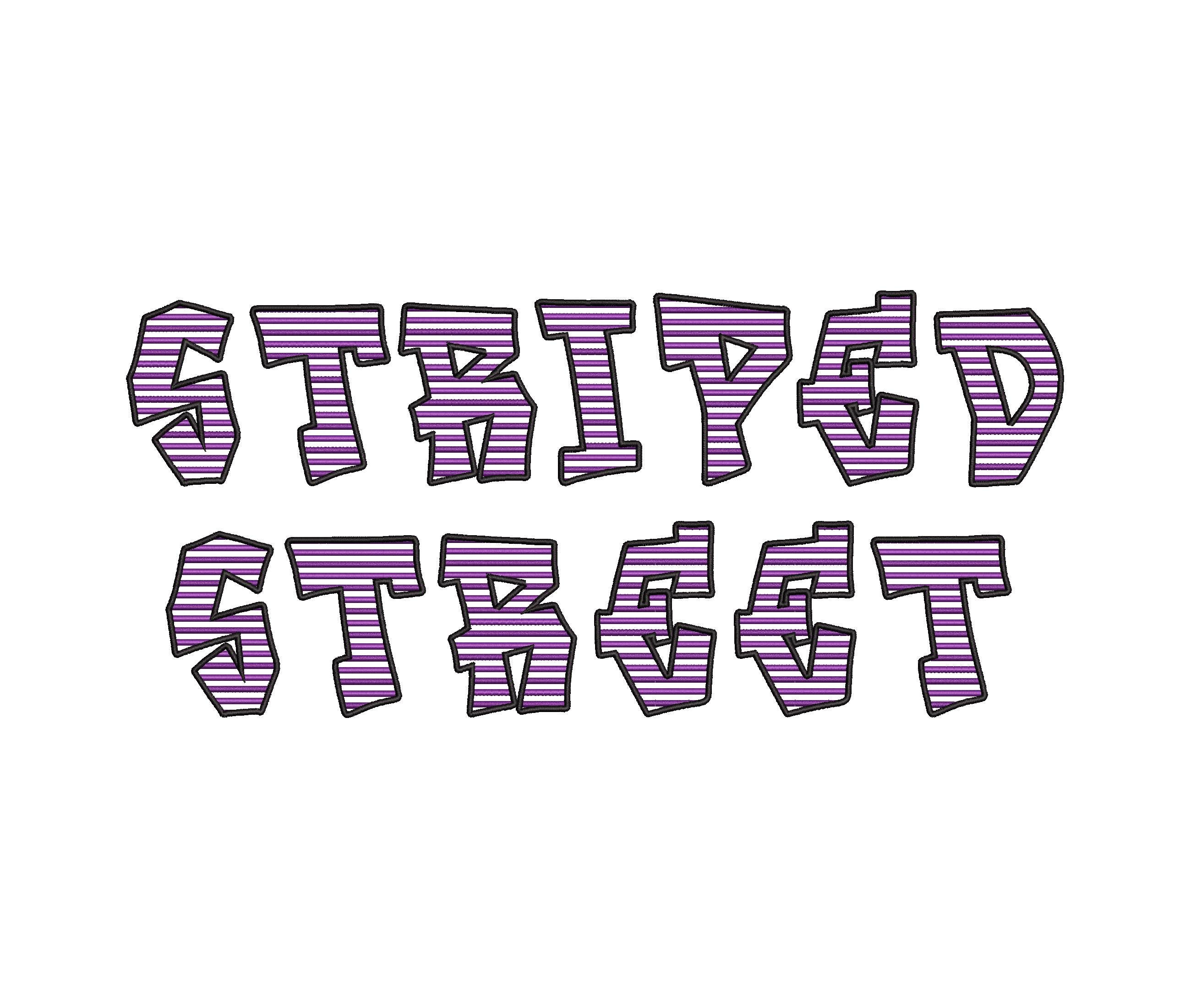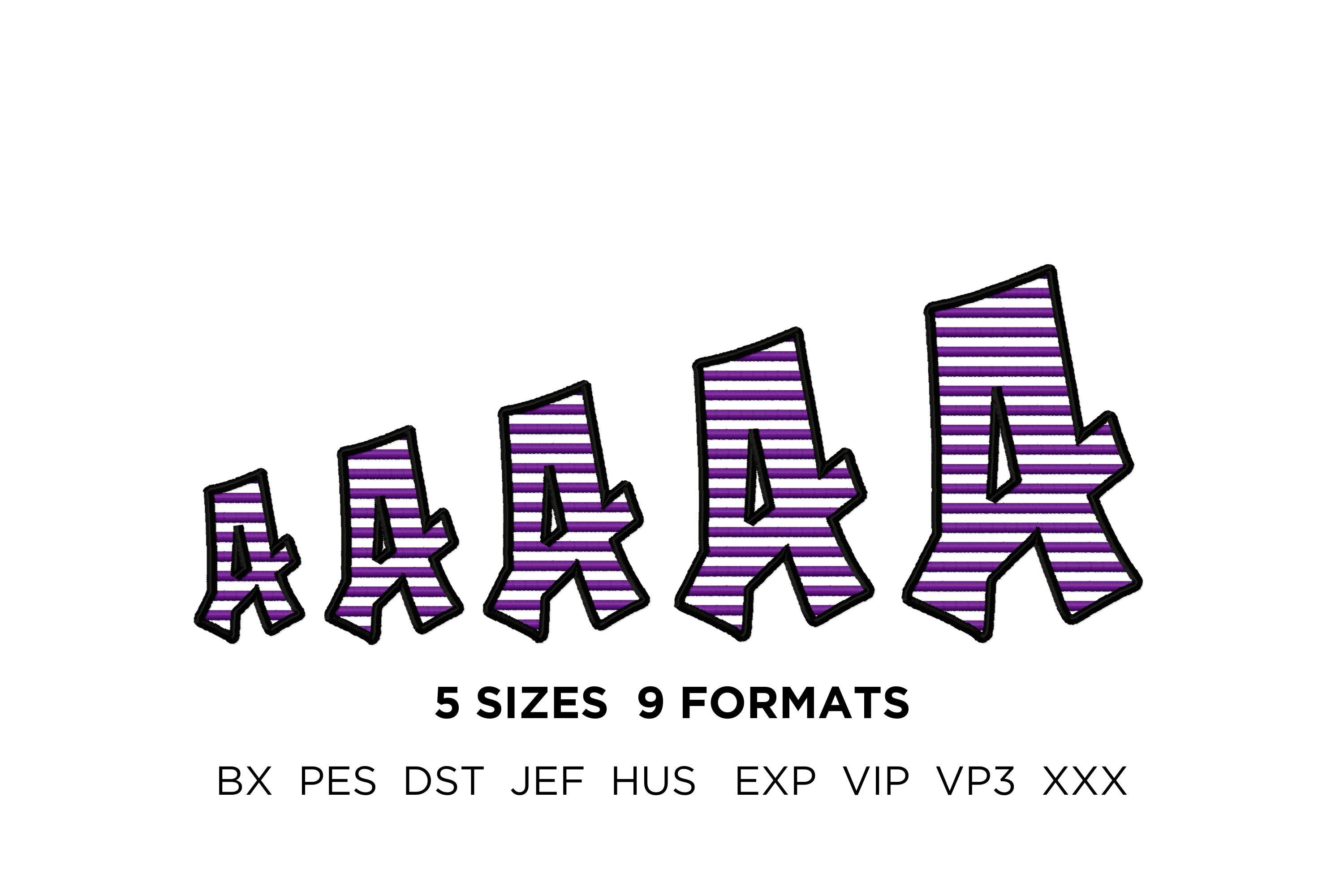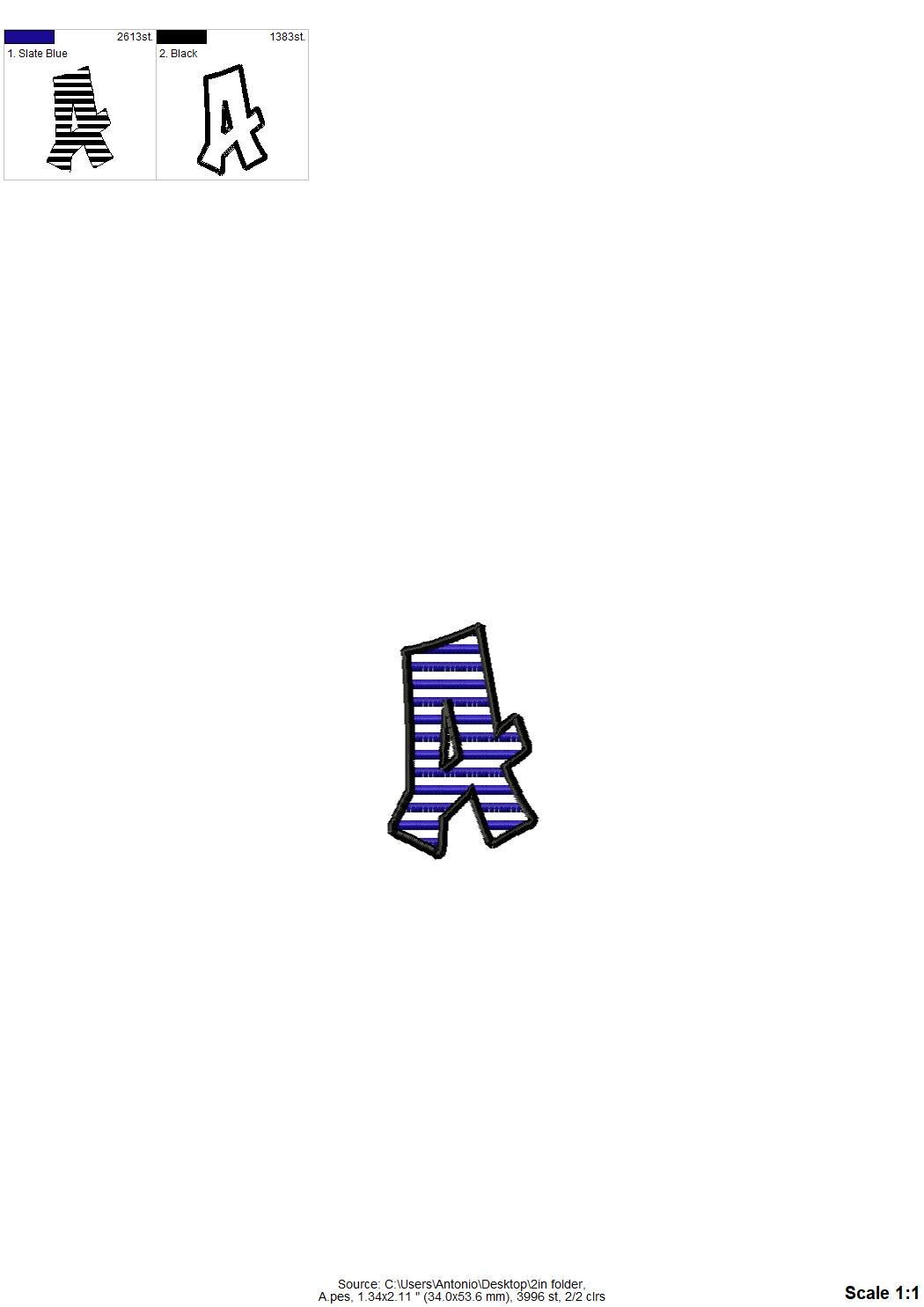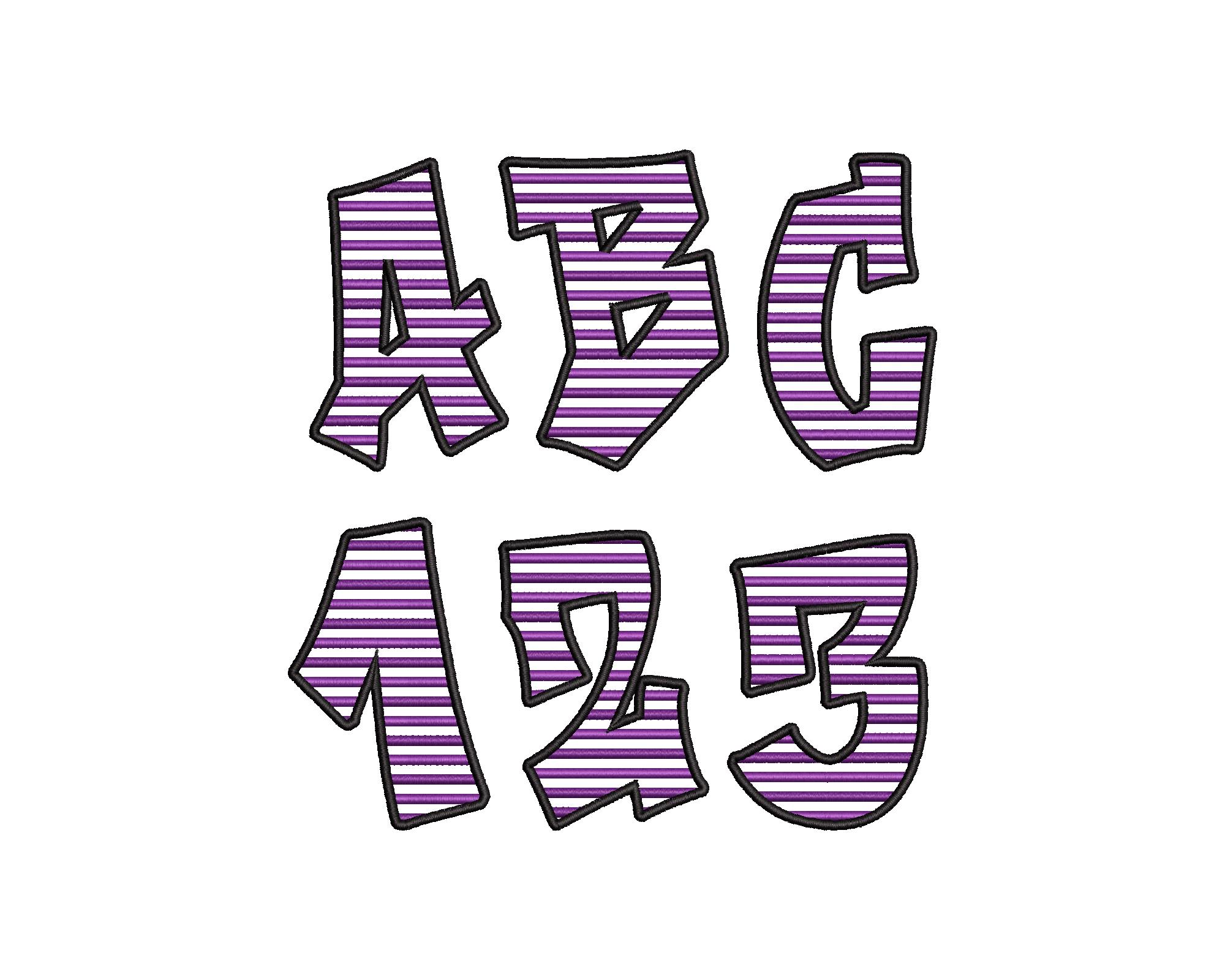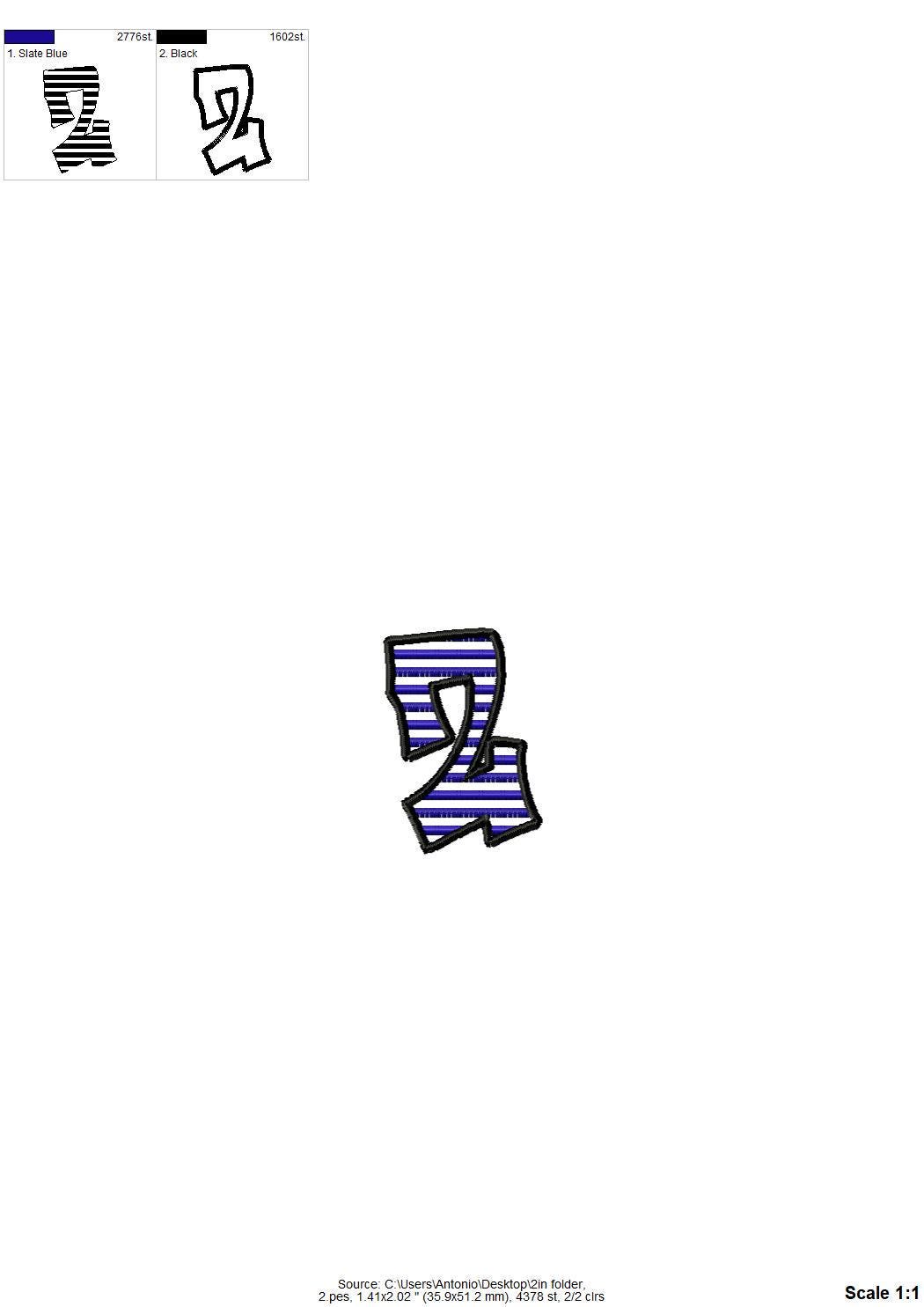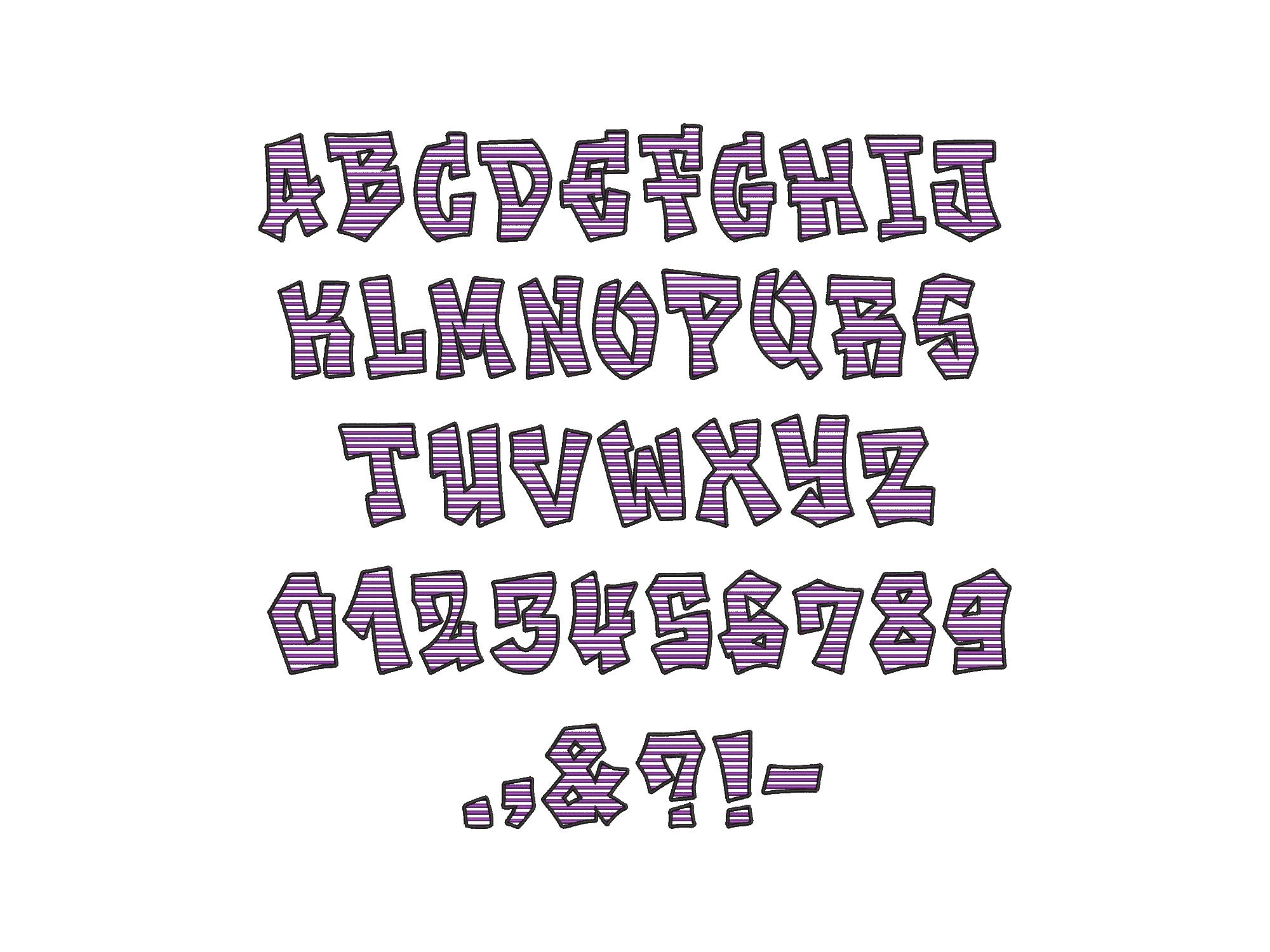
Striped Street Font satin stitch alphabet monogram letters Graffiti style Font machine embroidery designs many sizes 1.4 up to 3 inches, and BX
Entire alphabet A-Z uppercase letters, numbers 0-9, and punctuation.
This is a transparent font, featuring satin stitch stripes and an outline; the background fabric appears to be see-through. Stunning effect!